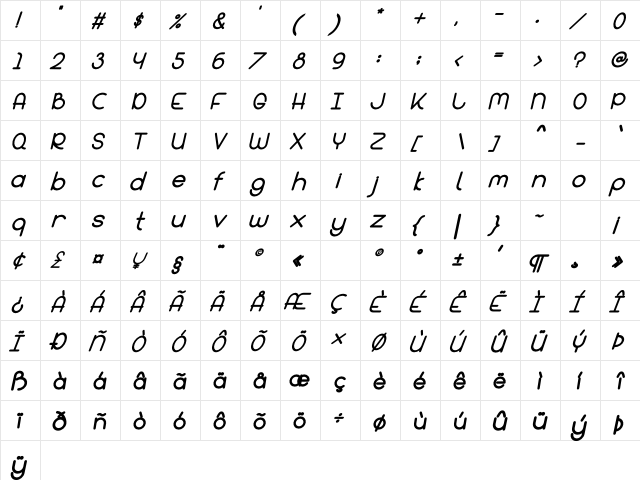
Bandar Bold Italic
| Designer | Afkari Studio KanaType |
Design Context for Bandar Typeface
Bandar takes a measured approach to typography — its balanced proportions and neutral character make it a reliable workhorse for both digital and print work. Its italic angle brings a sense of urgency and motion to the letterforms. Its bold stroke weight gives it real presence on the page.